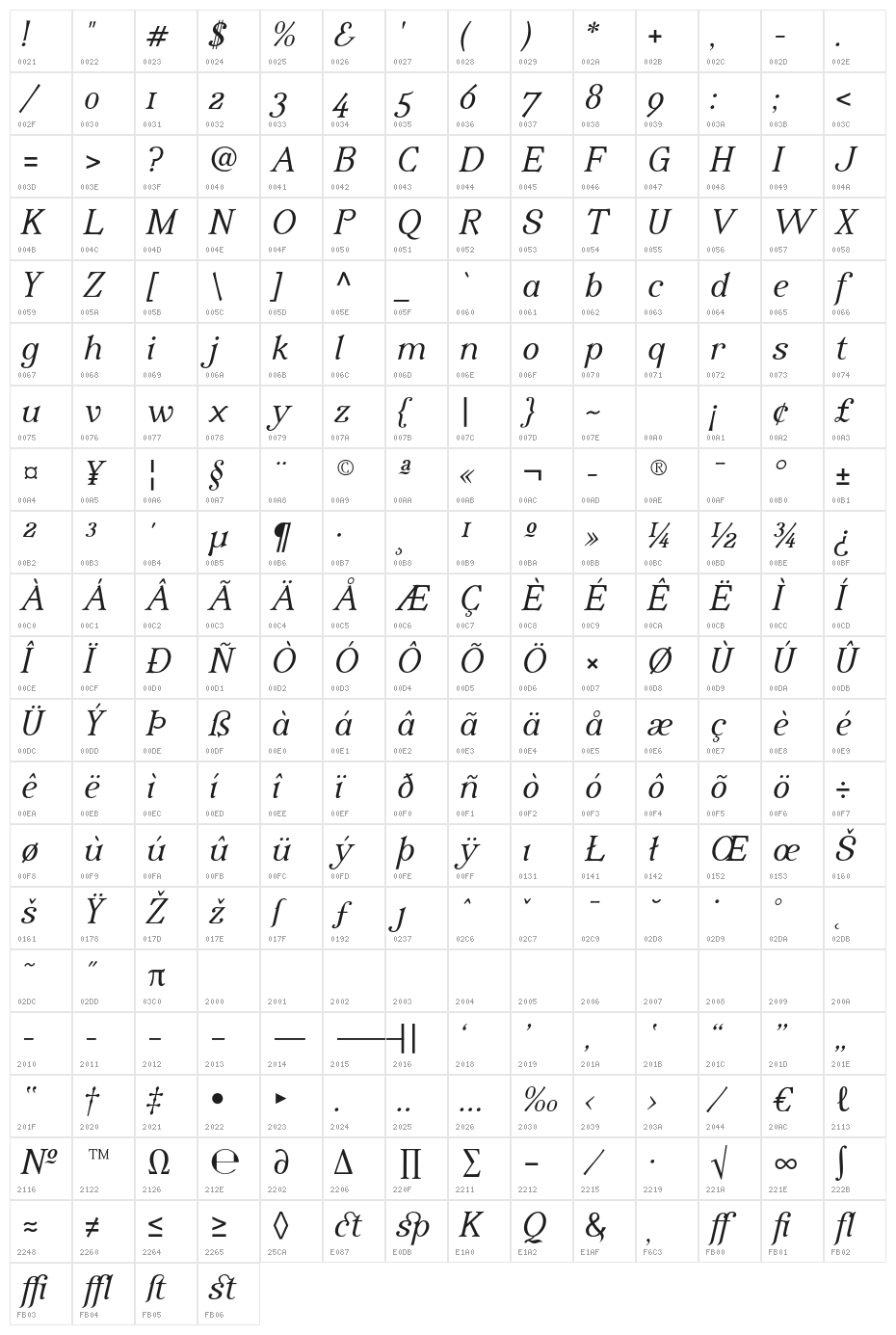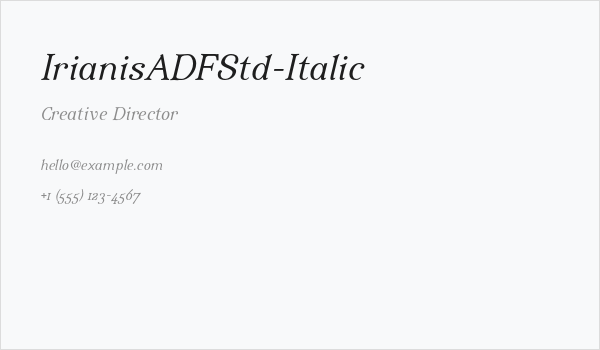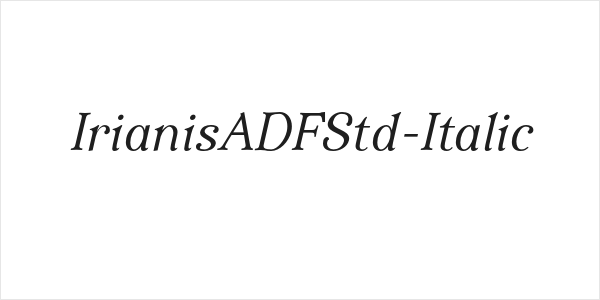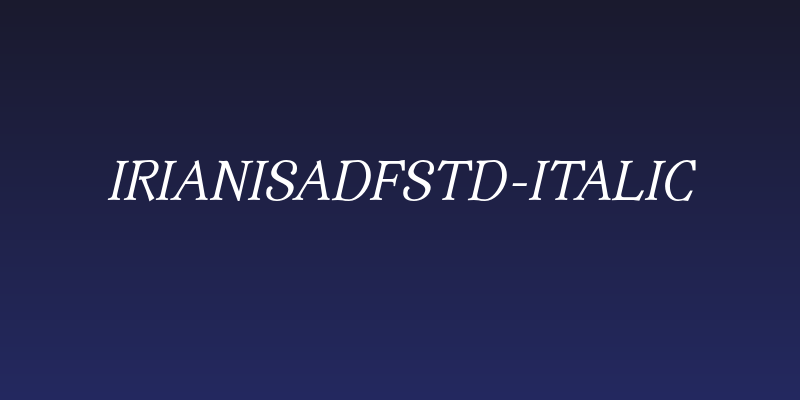
IrianisADFStd-Italic Font
IrianisADFStd-Italic Description
This elegant serif typeface features a classic italic style with smooth, flowing curves and a refined appearance. The letters exhibit a slight slant, enhancing the sophisticated look. The uppercase characters are tall and stately, while the lowercase letters are well-proportioned and graceful. The numerals are consistent with the overall style, maintaining the elegance of the font. Special characters are thoughtfully designed to complement the alphabet, making this typeface versatile for various uses.
| Proposed Projects | Ideal for formal invitations, elegant branding, editorial design, and sophisticated advertising. |